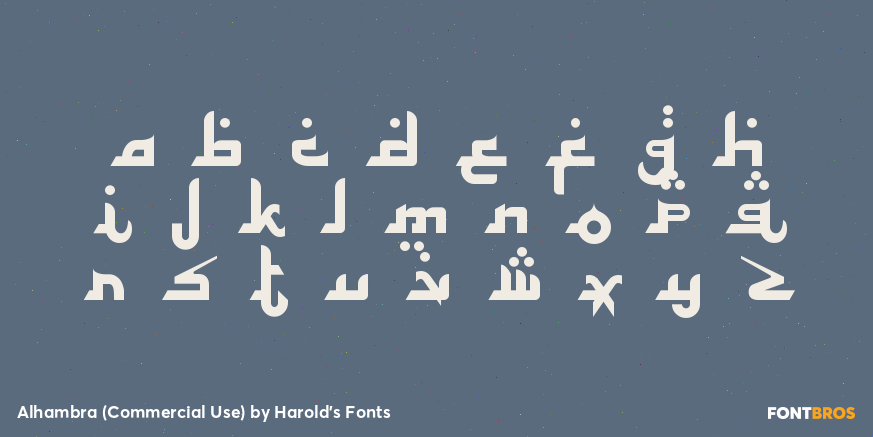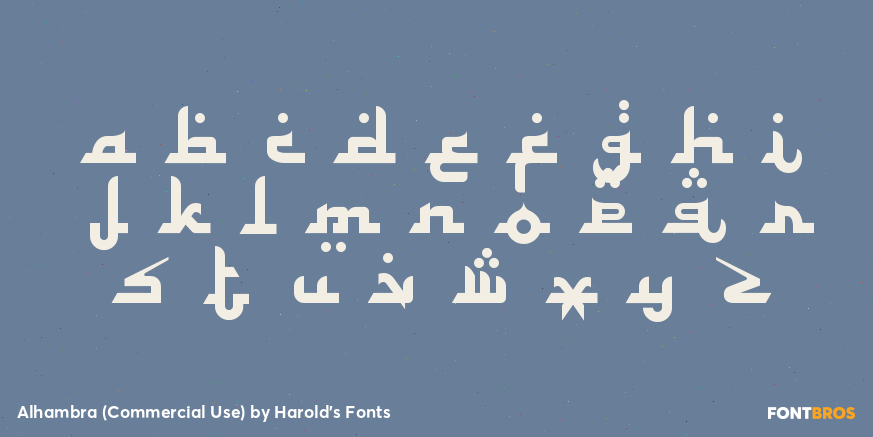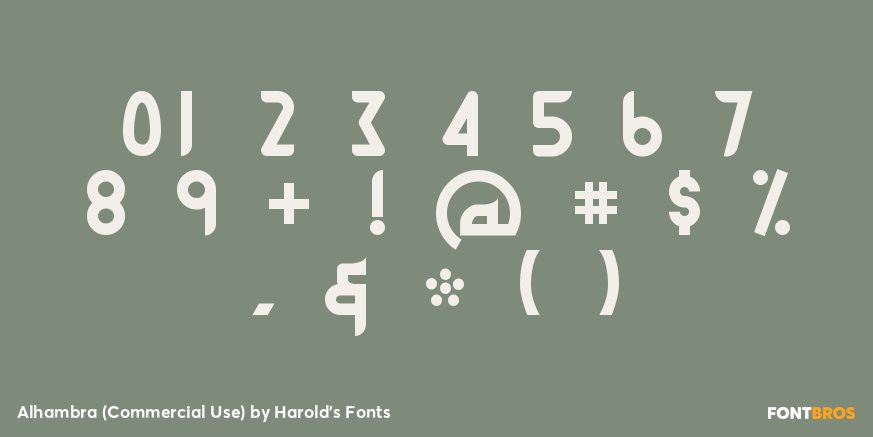
Alhambra (Commercial Use)
Font Family by Harold's Fonts
Buy NowAlhambra (Commercial Use) is a decorative display family with an ornate, historical feel shaped by Arabic and Middle Eastern influence. Its letterforms create a richly styled, atmospheric impression that feels well suited to projects needing a distinctive old-world or exotic character.
This family includes 2 font styles: Alhambra Regular and Alhambra Deep. The pairing gives designers two related looks to work with, making it useful for layered headlines, dramatic titles, and other eye-catching display treatments.
From Harold's Fonts, this release is a strong fit for posters, themed branding, packaging, signage, and decorative editorial work where mood and visual character matter as much as readability. If you're looking for a historical special effect font with a stylized regional influence, this family offers a focused and memorable option.